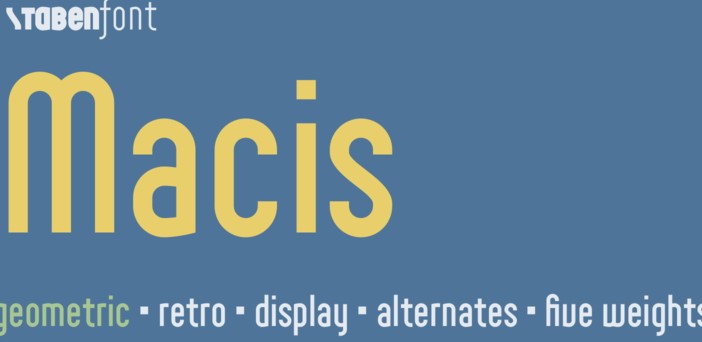
Macis Font was designed by Frédéric Goudy in 1922. The design is an old style techno typeface with a high x-height and long ascenders. This texture family includes six weights, from light to black.
It is a classic typeface that has been used by many notable designers over the years. One of its most famous users is Saul Bass, who used it for the title sequence of the film North by Northwest. Other well-known designers who have used Macis typeface include Massimo Vignelli, Paula Scher, and David Carson.
This typeface is a versatile typeface that can be used for a variety of applications. It works well for both body text and headlines. Macis texture also works well for both digital and print design projects.
If you’re looking for a classic, stylish, and versatile typeface, then Macis typeface is a great choice. You can use it with smash bros font for making beautiful headlines, stylish body text, or even for creating stunning logos and other design elements. Macis texture is a timeless typeface that will always be in style.
Macis texture was designed by Frédéric Goudy in 1922. The design is an old-style techno typeface with a high x-height and long ascenders.
This single, appealing style incorporates several elements, such as capital and lowercase letters, punctuation, characters, numbers, special, symbols, glyphs, and language support.
| Style | Techno |
What is Macis Font?
It is a classic techno typeface designed by Frédéric Goudy in 1922. The design is an old-style retro with a high x-height and long ascenders. The Macis Font family includes six weights, from light to black.
What are some of the uses for Macis texture?
Macis typeface can be used for body text, headlines, logos, and other design elements. It works well for both digital and print design projects.
Is Macis style a timeless typeface?
Yes, It is a timeless typeface that will always be in style.